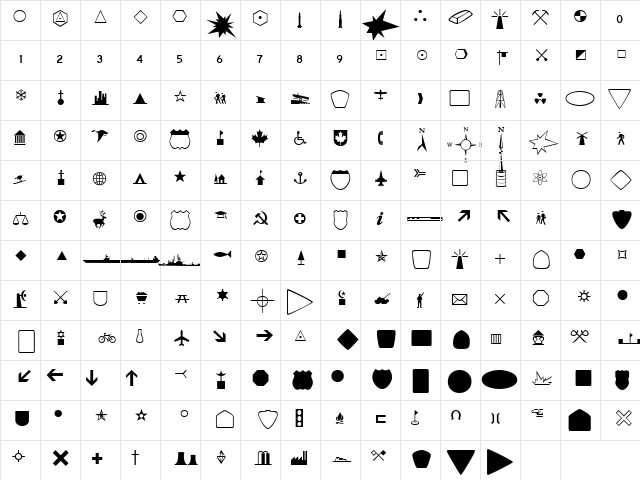
CartographerLightSSK Regular Free Font
Design Context for CartographerLightSSK
CartographerLightSSK is a composed and adaptable typeface that performs quietly and consistently across a wide range of design contexts. Its slender proportions lend an understated elegance to any composition.